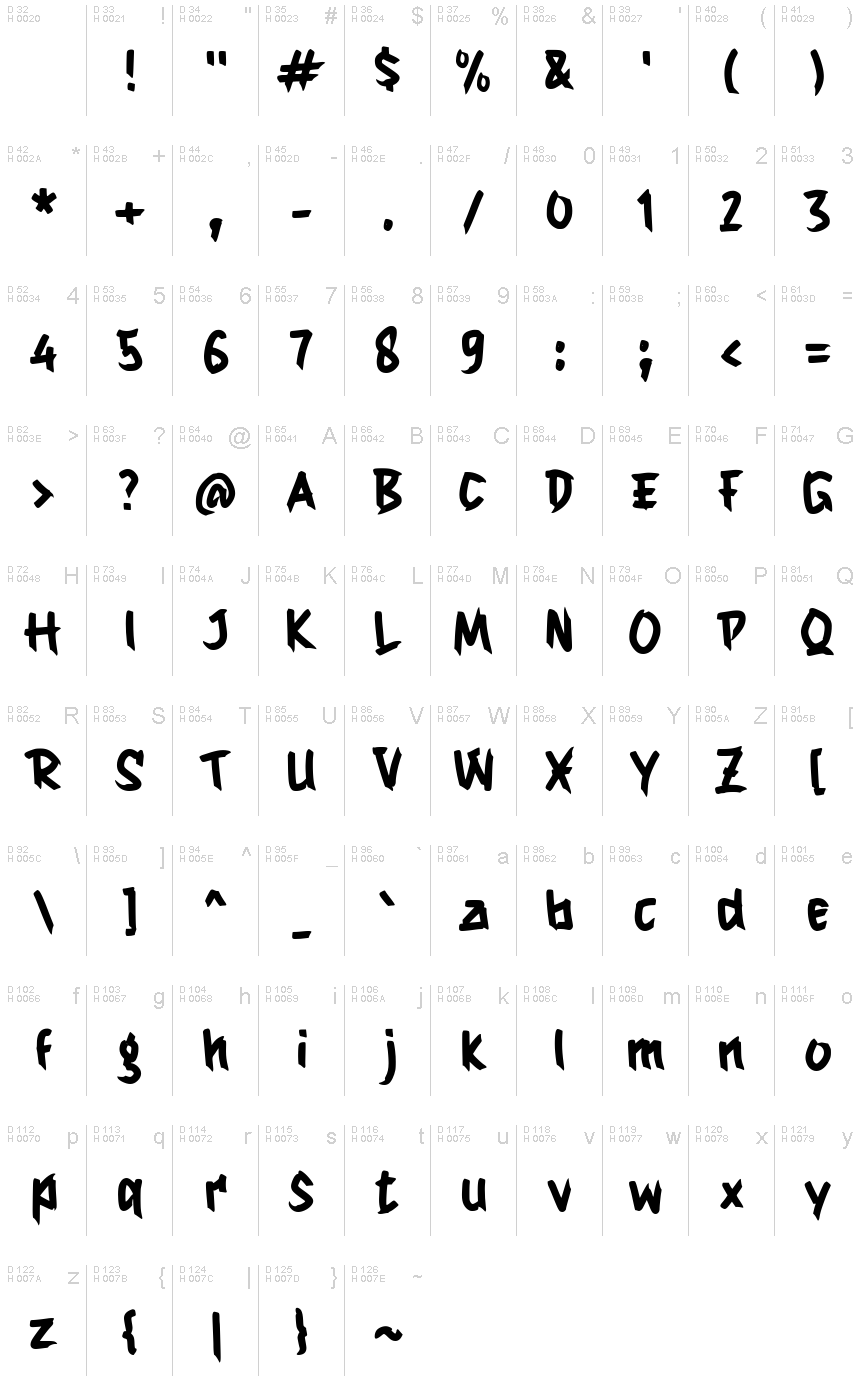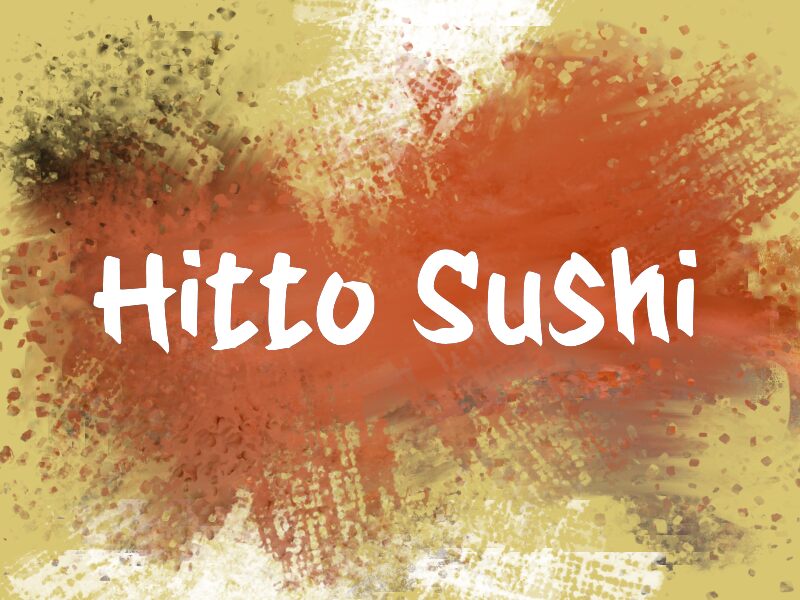
Hitto Sushi
Hitto Sushi font by Wep finds its distinct style in Japanese script, obvious through the expressive artistic vibe it delivers. This typeface exudes casual elegance thanks to the brush-like texture and it doesn’t lack charm either. The modern appeal of this font is attention-grabbing making it suitable for use with a wide range of designs.
Titles and texts that require a strong personality can always benefit from Hitto Sushi font, as well as any typography and copywriting artworks. Free to use projects that can benefit from this font include lovely menus for restaurants selling Asian cuisine meals, journals, logo concept designs with branding purposes such as stationaries and posters etc.